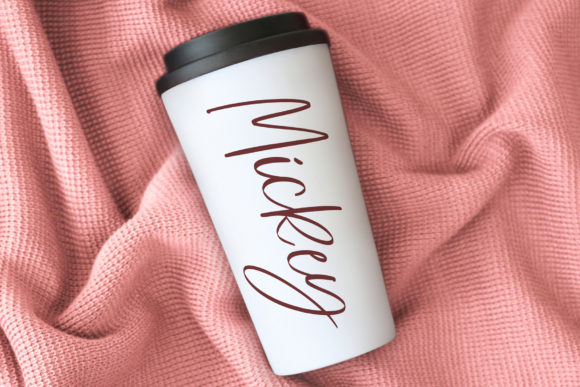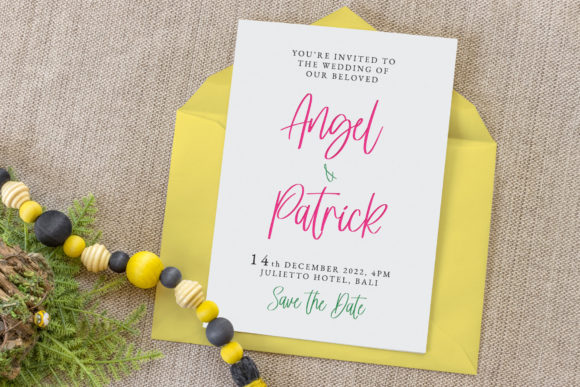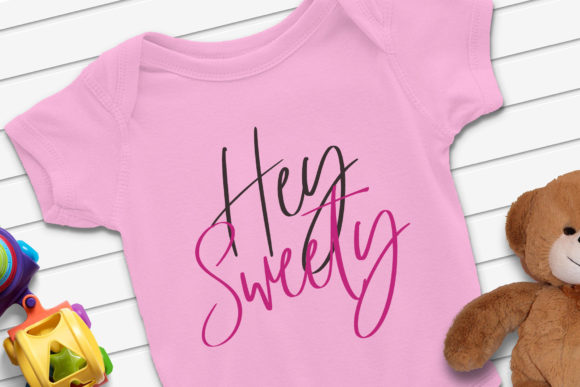
Introduction to Be Stylish Font
Be Stylish is thin, simple and luxurious script font.
Its delicate style made this ideal for wedding invitations, t-shirt designs, crafting, stickers, sublimation, and many more .